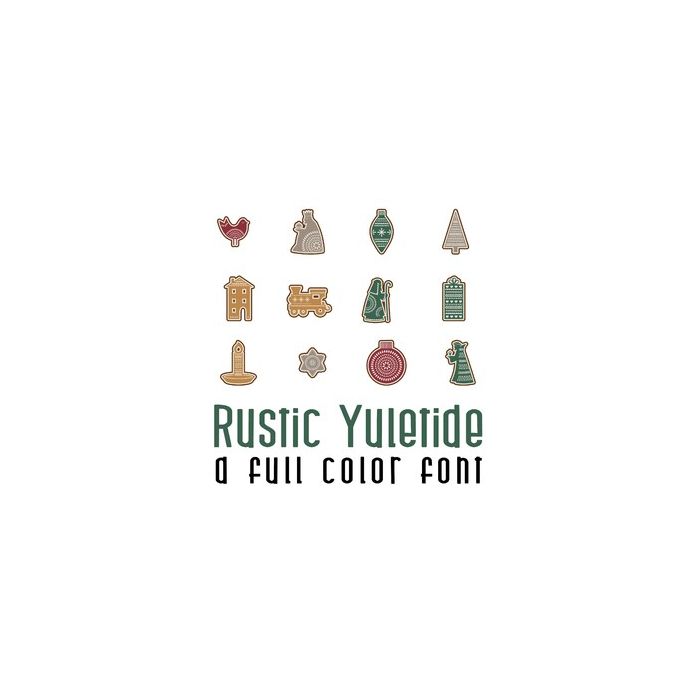
This adorable full-color doodlebat font features 26 decorative holiday images. Perfect for cards, crafts, gifts, decor, scrapbook pages, planner stickers, and more!